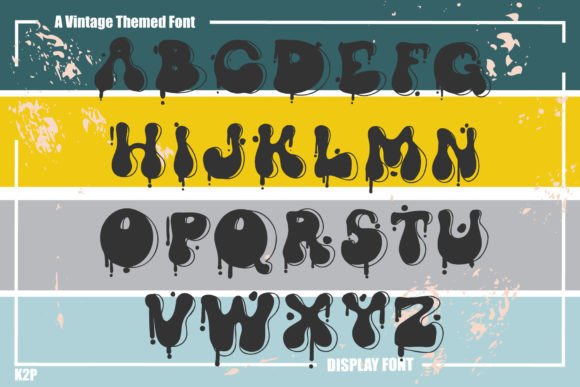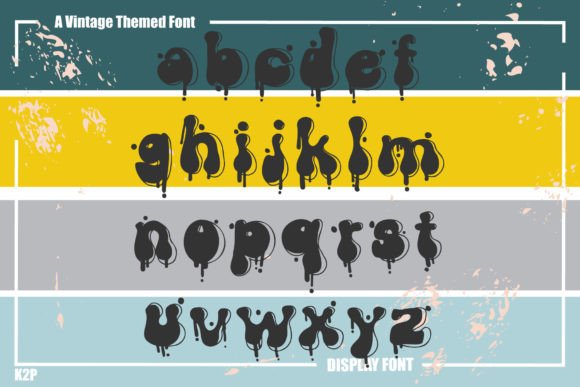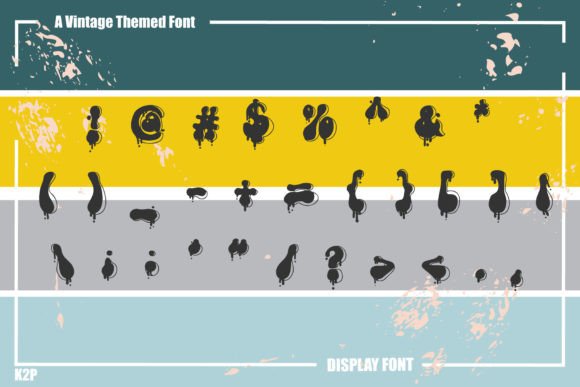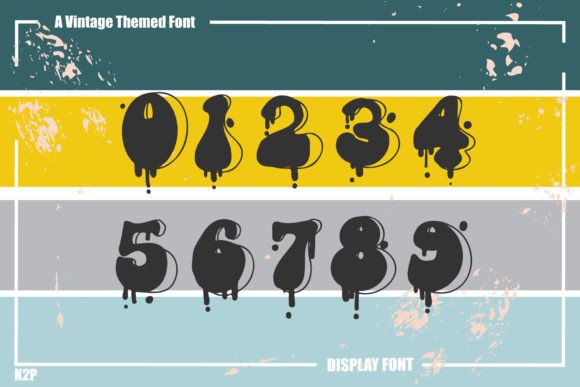
Groovy Graffiti Font: The Ultimate Retro Display Font for Your Designs
Are you looking for a font that can add a touch of nostalgia and playfulness to your designs? Look no further than the Groovy Graffiti Font! This fun, retro, and whimsical display font is sure to capture the hearts of designers and crafters alike with its incredibly distinct and timeless style.
What is Groovy Graffiti Font?
Groovy Graffiti Font is a unique and eye-catching display font that is perfect for creating spectacular designs. Its retro style is reminiscent of the 1960s and 1970s, with bold lines, bright colors, and a playful vibe. The font is designed to be highly legible, making it perfect for use in a variety of design projects, from posters and flyers to t-shirts and other craft projects.
Key Features of Groovy Graffiti Font
- Retro Style: The Groovy Graffiti Font has a distinctly retro feel that is sure to transport you back to the good old days of bell-bottom jeans and disco music.
- Whimsical Design: The font features playful and whimsical designs that are perfect for adding a touch of fun and personality to your projects.
- Distinctive Style: The Groovy Graffiti Font has an incredibly distinct style that sets it apart from other fonts. Its bold lines and bright colors make it perfect for creating eye-catching designs.
- Highly Legible: Despite its bold and playful design, the Groovy Graffiti Font is highly legible, making it perfect for use in a variety of design projects.
Uses for Groovy Graffiti Font
The Groovy Graffiti Font is a versatile font that can be used in a variety of design projects, including:
- Posters and Flyers: The font’s bold and playful design makes it perfect for creating eye-catching posters and flyers.
- T-Shirts and Apparel: The Groovy Graffiti Font is a great choice for designing t-shirts, hoodies, and other apparel.
- Craft Projects: The font’s whimsical design makes it perfect for use in a variety of craft projects, from scrapbooking to card making.
- Digital Designs: The Groovy Graffiti Font can also be used in digital designs, such as social media graphics and blog posts.
Tips for Using Groovy Graffiti Font
Here are a few tips for getting the most out of the Groovy Graffiti Font:
- Use it Sparingly: While the Groovy Graffiti Font is a fun and playful font, it can be overwhelming if used too much. Use it sparingly to add a touch of personality to your designs.
- Pair it with Other Fonts: The Groovy Graffiti Font pairs well with other fonts, such as sans serif fonts and script fonts. Experiment with different font combinations to find the perfect look for your design.
- Experiment with Colors: The Groovy Graffiti Font looks great in a variety of colors, from bright and bold to pastel and soft. Experiment with different colors to find the perfect look for your design.
The Groovy Graffiti Font is a fun, retro, and whimsical display font that is perfect for adding a touch of personality to your designs. Its incredibly distinct and timeless style makes it a great choice for designers and crafters alike. Whether you’re creating posters, t-shirts, or digital designs, the Groovy Graffiti Font is sure to make your designs stand out.